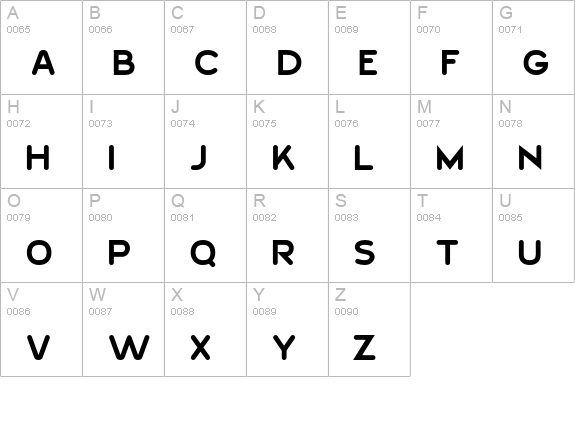
20thCenturyFont Font Details
20thCenturyFont is a stylish and versatile font that captures the essence of the 20th century design aesthetic. With its clean lines and classic look, this font is perfect for a wide range of design projects, from vintage-inspired branding to modern editorial layouts. Its timeless appeal makes it a go-to choice for designers looking to add a touch of sophistication to their work. What sets 20thCenturyFont apart is not just its timeless design, but also the fact that it is available for free download at FontsMarket.com. This means that you can easily access this elegant font and use it in your projects without any cost. Whether you're working on a print design, web project, or any other creative endeavor, 20thCenturyFont is sure to elevate your work with its classic charm and versatility. Download it today and see for yourself the impact it can make on your designs.